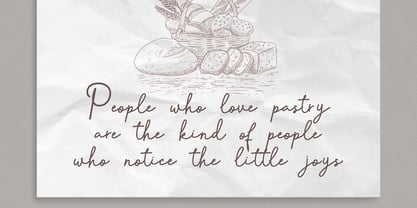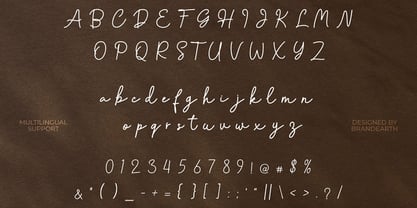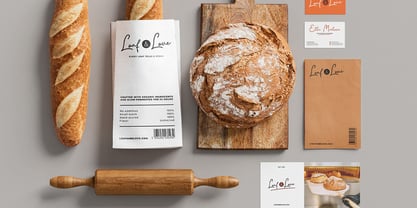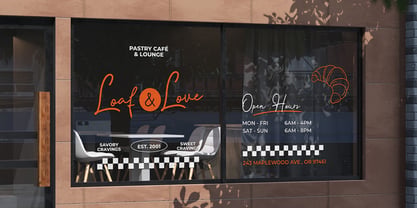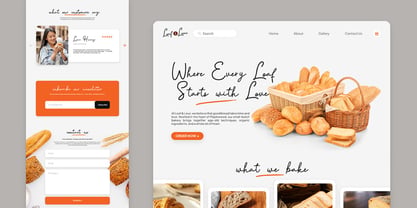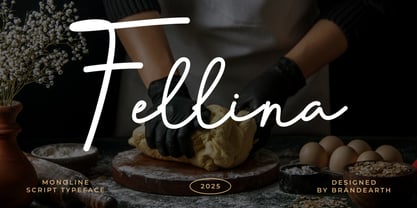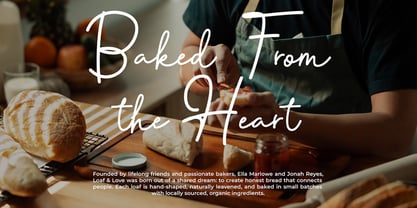
Fellina
by Brandearth
The Fellina Font Family was designed by Moch Rasjid Wiyono and published by Brandearth. Fellina contains 1 styles. More about this family
Fellina is a monoline script typeface featuring smooth handwritten strokes, natural flow, and elegant simplicity. The package includes uppercase, lowercase, numbers, punctuation, and multilingual support, delivered in high-quality font files ready for desktop and commercial projects. Fellina is highly relevant for projects that require a soft, personal, and handcrafted impression. It works beautifully for bakery branding, café packaging, wedding invitations, lifestyle products, social media quotes, and editorial designs that aim to feel warm, authentic, and refined.